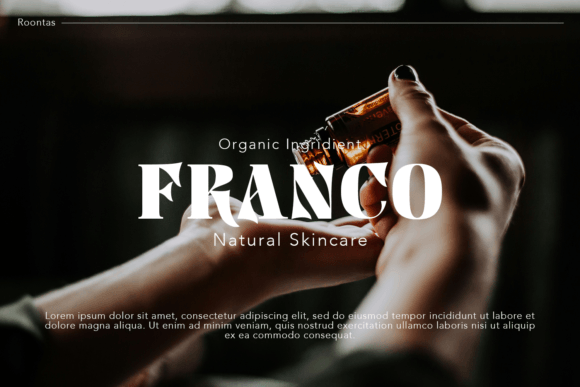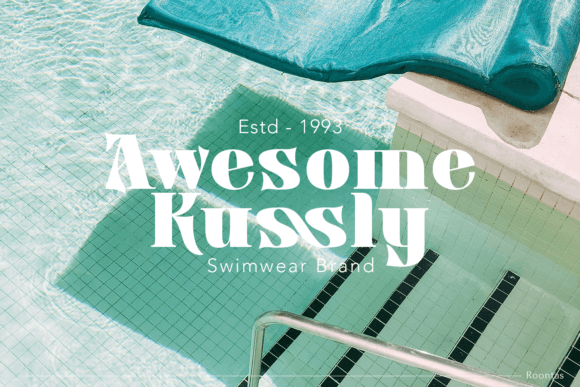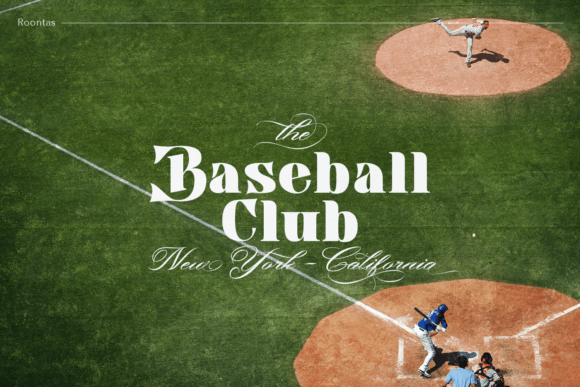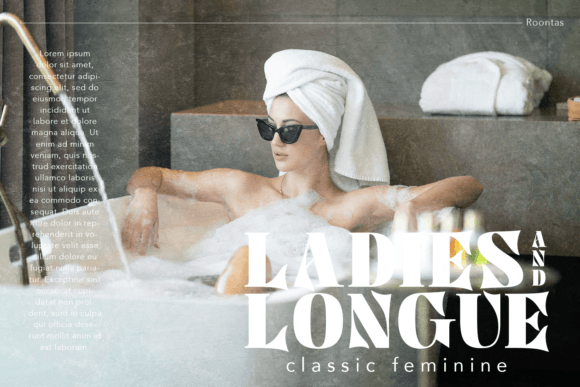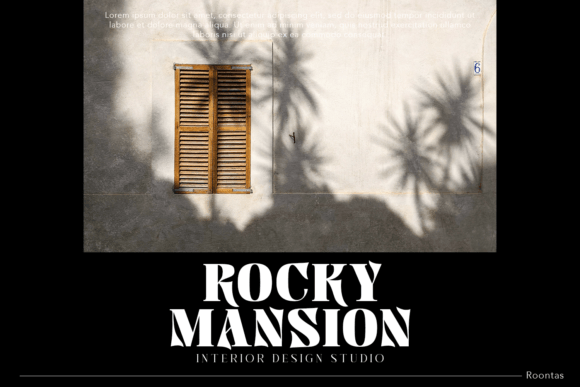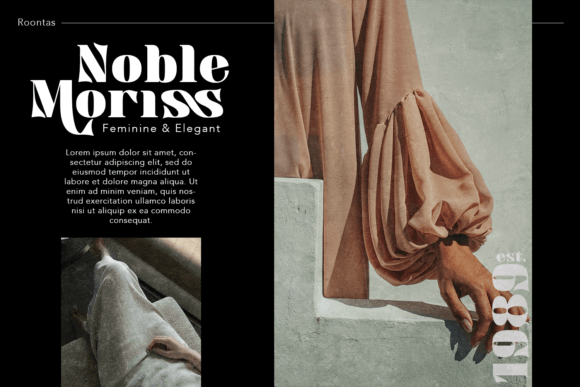
Introduction to Roontas Font
Roontas is a cool retro font that brings back nostalgic vibes.
It’s got a single weight, making it easy to read, and its shapes really stand out This font is great for all sorts of display needs.